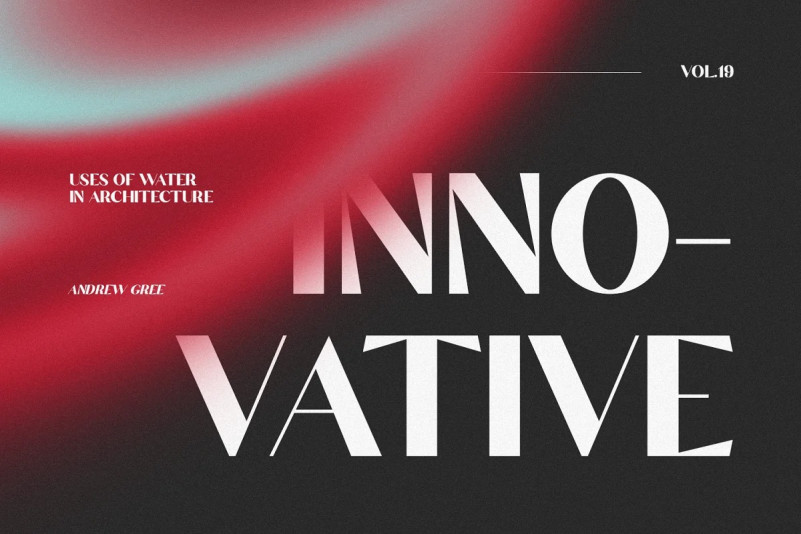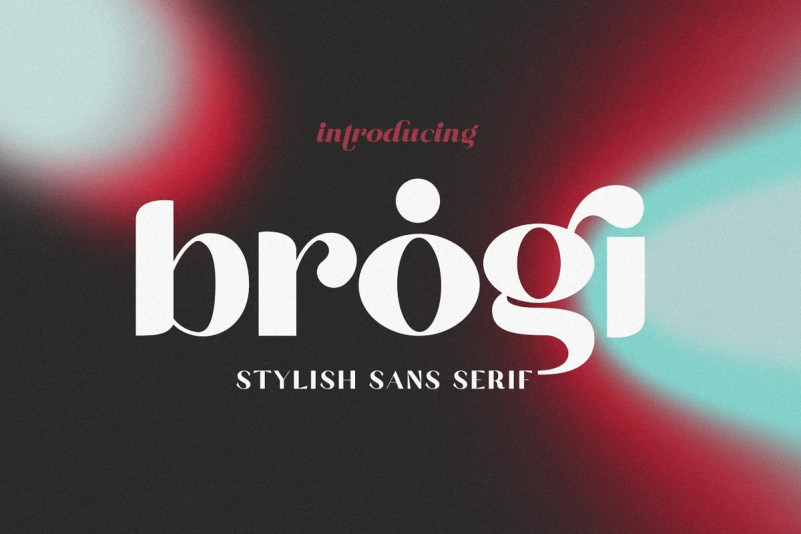
Brogi Font
Brogi Sans Serif Font is a stylish sans serif font designed specifically for logo and brand designs. Brogi exuded a sense of boldness and sophistication despite his menacing styles. Ligature fonts can be used for almost any purpose you can imagine.